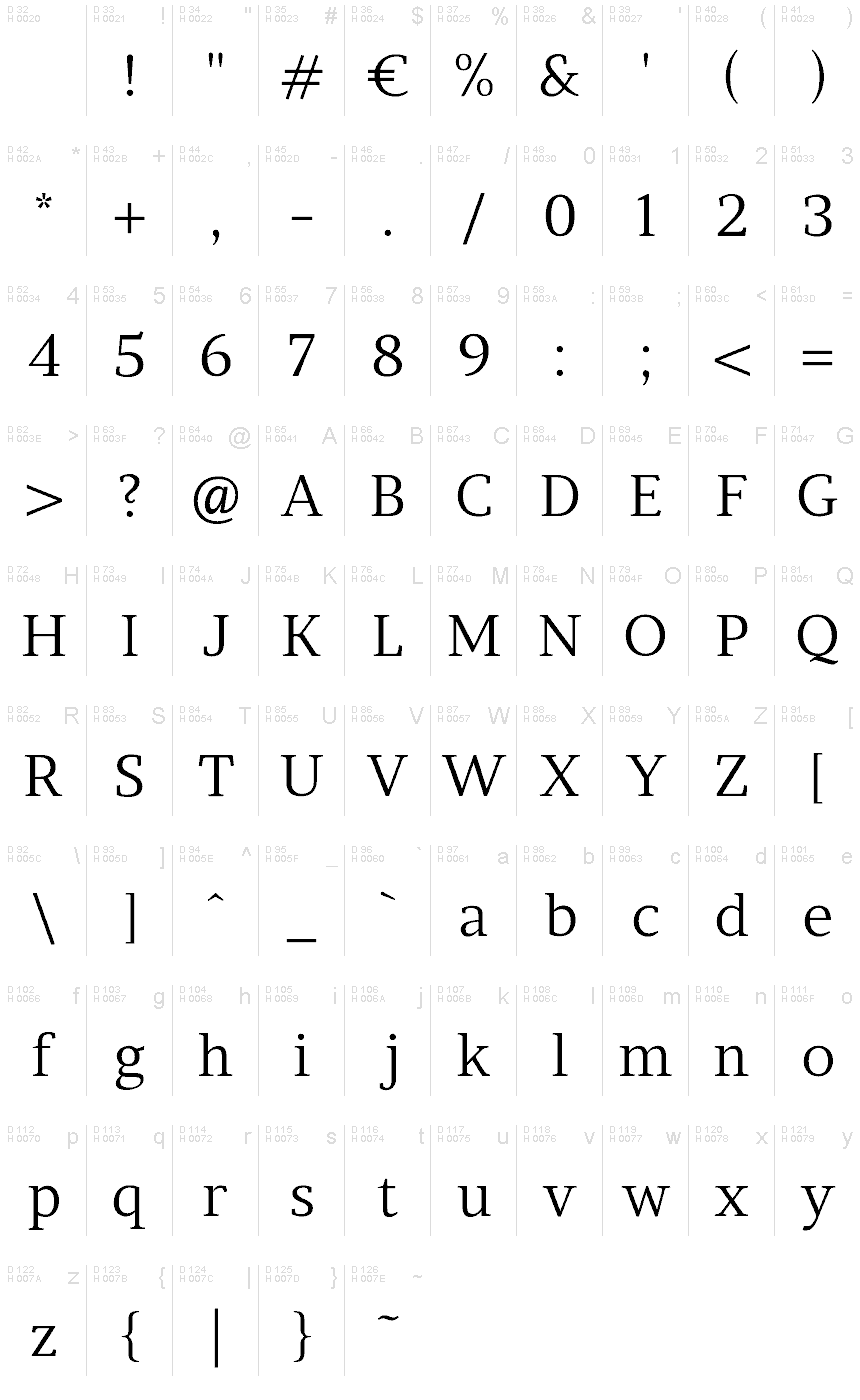
Tess
Tess font was designed by Naan Type Studio with an attention to detail and creativity. This modern typography is beautiful from both a distance and up close due to the blend of subtle curves, refined shapes, and balanced proportions. Its individual character details are impressive, just like the overall appearance.